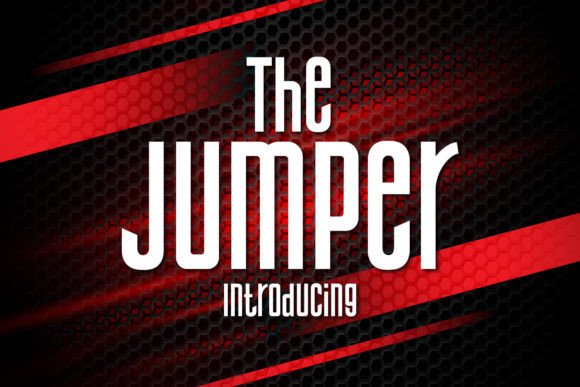
Introducing The Jumper Font - your ultimate solution for Best Fonts for Branding! Created by Fox7, this simple yet beautiful sans serif font is everything you need to elevate your designs and make them stand out from the rest.
The Jumper Font is the perfect blend of simplicity and professionalism. Its thin and tall letterforms make it a versatile choice for a wide range of design applications, from branding and logos to packaging, card-making, magazines, films, posters, websites, and more. No matter what your creative needs are, The Jumper Font has got you covered.
This font is not just easy to use, but it's also incredibly captivating. The clean and crisp lines of The Jumper Font are sure to leave a lasting impression on your audience. It's the perfect choice for those who want to make a statement with their designs, without compromising on readability and legibility.
With The Jumper Font, you don't have to worry about being limited to a certain style or theme. Its versatility allows you to use it in any creative idea, whether it's modern, classic, or minimalist. The Jumper Font is the ultimate tool for designers who want to take their creativity to the next level.